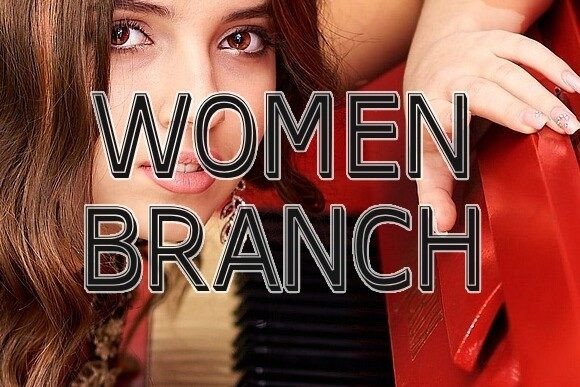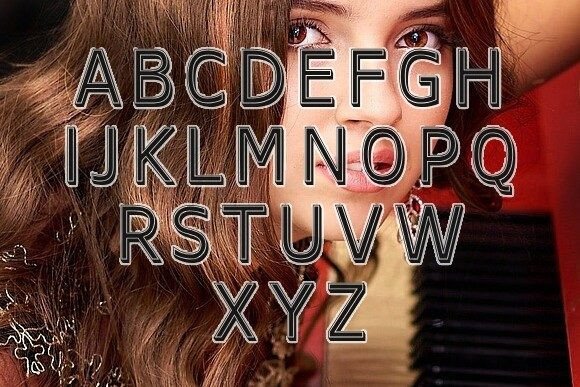
Designing with Heart: The Timeless Beauty of Andrea Font
You know that feeling when a single font choice can elevate your entire design? It’s like the difference between a spark and a flame – and that’s exactly what Andrea Font brings to the table. As designers, we’re always on the lookout for that special something that sets our work apart, and Andrea Font is the perfect addition to any project.
Andrea Font is a stunning sans serif typeface that’s designed to capture attention and convey emotion. Its unique, handcrafted feel makes it a standout choice for logos, branding, and quotes – anywhere you want to add a touch of personality to your design. Whether you’re working on a personal project or a client brief, Andrea Font is a valuable asset to have in your toolkit.
Key Features of Andrea Font
- Font Family: Andrea is a sans-serif font family designed by Martin Sommerness.
- Font Size: Available in 8 font weights, ranging from Light to Black.
- Unique Characteristics: Andrea features a clean, modern design with a subtle geometric feel, making it suitable for various digital applications, including user interfaces, web design, and mobile apps.
Andrea Font Review
As a designer, I’ve had the opportunity to work with various font families, and I must say that Andrea Font is a solid addition to any design project. ✨ Here are some of its strengths:
- Legibility: Andrea Font is designed to be highly legible, making it perfect for body text in articles, blog posts, and other content-driven designs.
- Neutral style: The font’s neutral style allows it to blend seamlessly into any design without drawing attention away from the content.
- Multi-language support: Andrea Font includes support for multiple languages, making it a great choice for international designs.
However, as with any font, there are some limitations to consider: ⚠️
- Lack of distinctiveness: While Andrea Font is easy to read, it may not stand out in a crowded market, especially when paired with more distinctive fonts.
- Not ideal for display text: While Andrea Font is suitable for body text, it may not be the best choice for display text, such as headings or titles, due to its relatively simple design.
Overall, Andrea Font is a reliable choice for designers who value legibility and neutrality. It may not be the most exciting font, but it gets the job done. If you’re looking for a clean and easy-to-read font for your next project, Andrea Font is definitely worth considering.
Andrea Font is ideal for use in creative and artistic projects, such as graphic design, typography, and branding.
It is also suitable for use in business and professional settings, such as presentations, reports, and marketing materials.
Andrea Font is a versatile font that can be used in